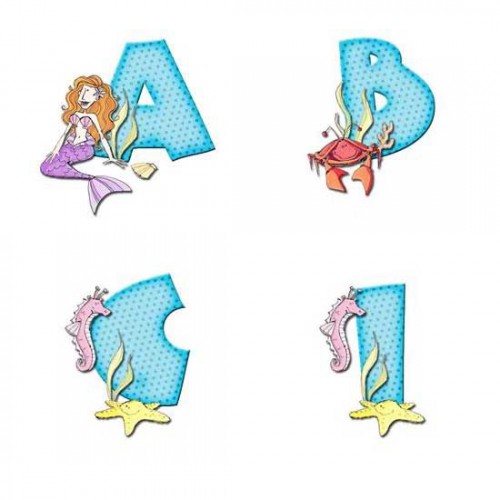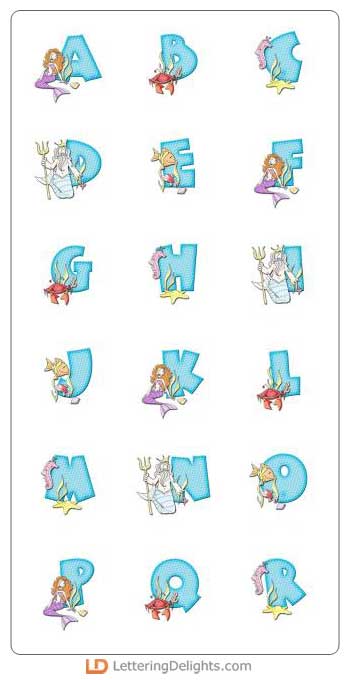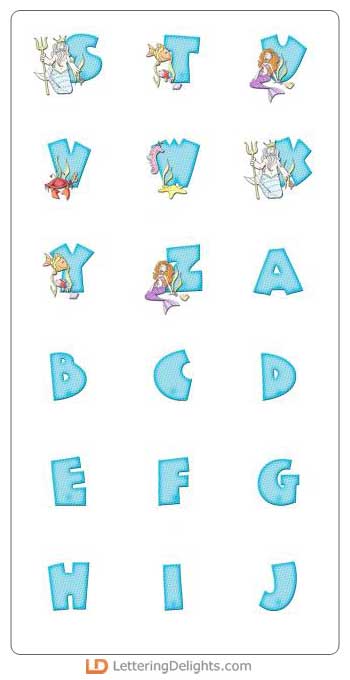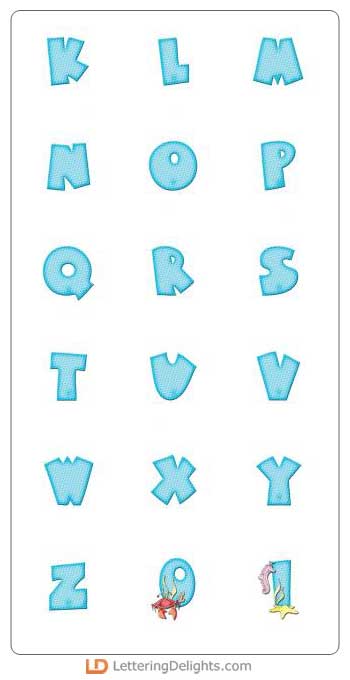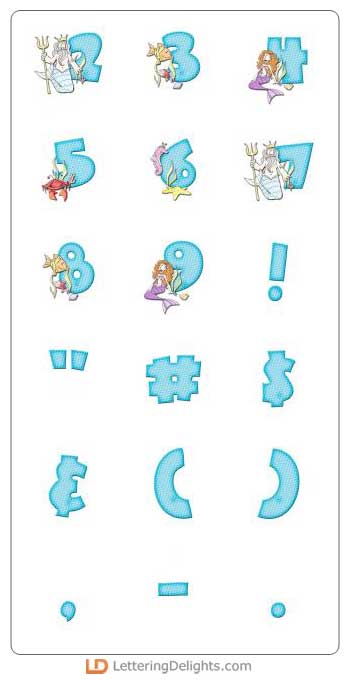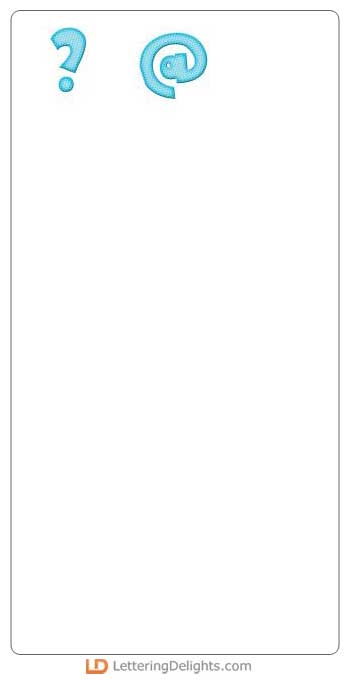
Look under the sea to find this cute alphabet. Mermaids and their fishy friends decorate the letters. They're perfect for all sorts of paper crafting. It has a complimentary Journaling Delight set.